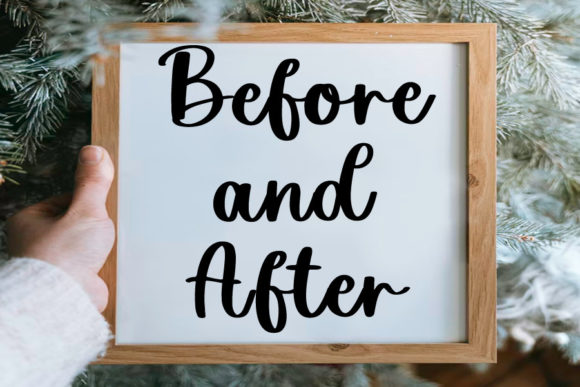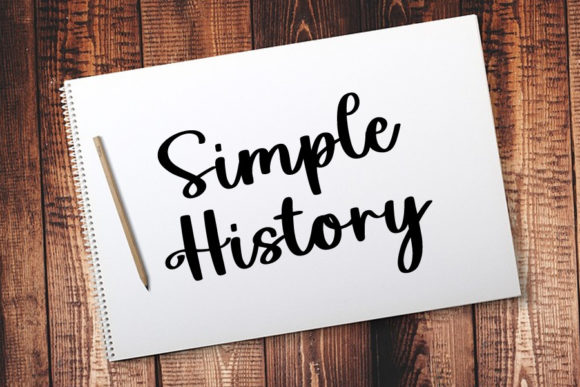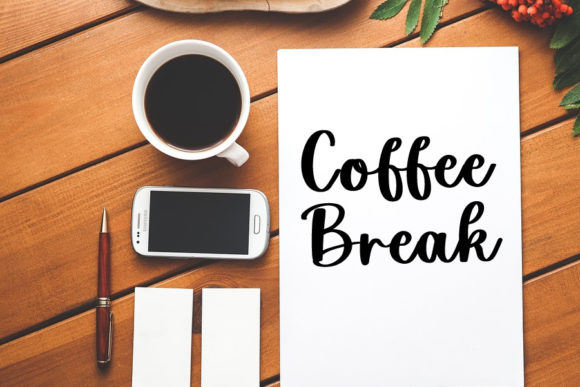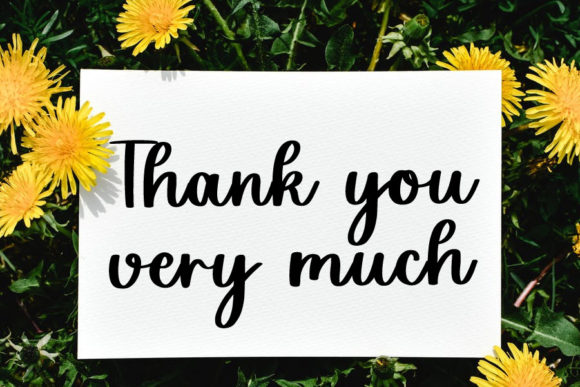
Unleashing the Magic of Holiday Season with the Perfect Font
Have you ever stared at a blank canvas, struggling to bring your creative vision to life? It’s a feeling we’ve all been there, but what if I told you that the right font could be the spark that ignites your design magic? For designers, finding the perfect font can be a game-changer, and that’s where the Holiday Saturday Font comes in.
This beautiful font is designed to add a touch of elegance and sophistication to any design project, from YouTube banners to wedding invitations. With its simple yet unique style, the Holiday Saturday Font is the perfect choice for businesses looking to make a lasting impression. By incorporating this font into your designs, you’ll be able to take your business to the next level and watch your progress soar.
Holiday Saturday Font Key Features
- Unique Characteristics: Holiday Saturday Font boasts a playful, festive design with a mix of bold and cursive elements, perfect for creating eye-catching holiday-themed graphics and designs.
Holiday Saturday Font Review
I recently had the chance to work with the Holiday Saturday Font, and I must say it’s a unique and intriguing addition to any design project. ✨ Here are a few things that stood out to me:
- Its playful, hand-drawn feel adds a touch of whimsy and personality to any text.
- The font’s variations in letterforms and punctuation create a sense of movement and energy.
- The font’s availability in multiple weights and styles provides versatility for different design applications.
- The font may not be suitable for formal or professional designs, as its playful feel can come across as immature.
- The font’s irregularities and variations may make it difficult to read for those with visual impairments.
- The font’s aesthetic may not appeal to everyone, and its unique feel can be polarizing.
Overall, I think the Holiday Saturday Font is a great choice for designers looking to add some personality and playfulness to their projects. It’s perfect for designs like social media graphics, blog posts, or children’s book illustrations. However, it may not be the best fit for more formal or professional designs.
Use the Holiday Saturday Font for creating festive and fun designs for holiday-themed projects.
Pair the font with bright and bold colors to create a visually appealing design.
Experiment with different font sizes and styles to create a unique and eye-catching design.
Use the Holiday Saturday Font for creating holiday-themed invitations, party decorations, and social media graphics.
Apply the font to gift tags, cards, and other paper crafts for a festive touch.
Use the font in advertising and marketing materials to create a fun and festive brand identity.